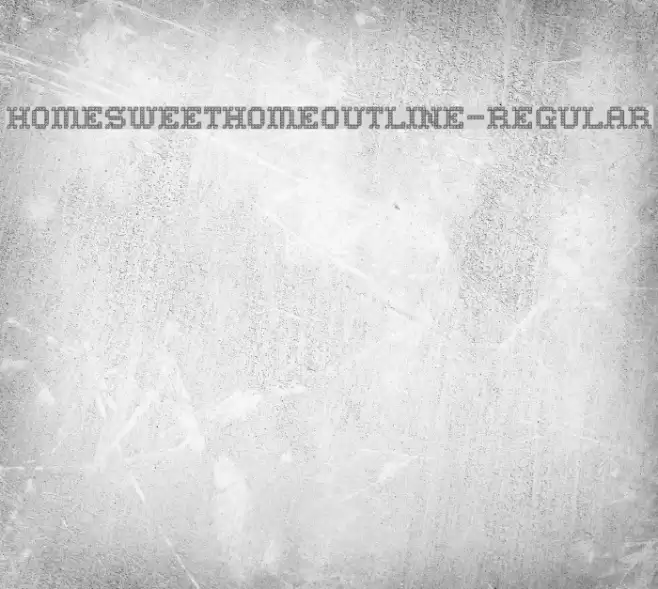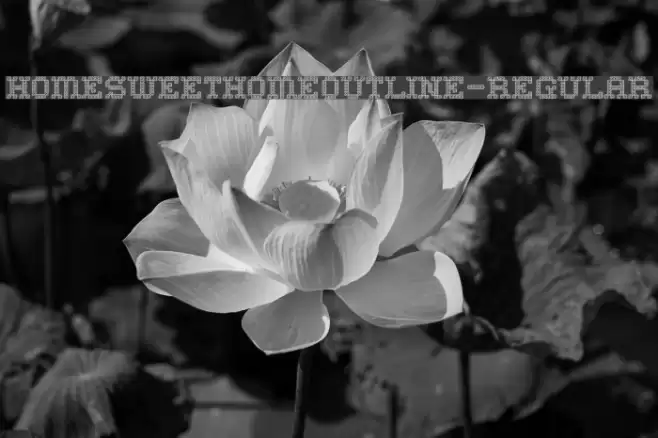
HomeSweetHomeOutline-Regular Font
HomeSweetHomeOutline-Regular Description
This font features a unique, decorative style with an outline design that resembles intricate, woven patterns. Each character is crafted with a consistent, bold outline that gives it a striking appearance. The letters are uppercase and lowercase, with numerals and a variety of special characters, all maintaining the same decorative theme. The design is reminiscent of a handcrafted, artisanal look, making it stand out in any application. The font's structure is solid, with each character having a uniform width and height, contributing to a cohesive and balanced look. The intricate detailing within the outlines adds a layer of complexity and visual interest, making it suitable for creative and artistic projects.
A decorative, outline font with intricate, woven patterns and a handcrafted appearance from Uncategorized fonts.
- Proposed Projects: Ideal for creative projects such as greeting cards, posters, and artistic branding materials.
- Use Case: Headlines, Logos, Artistic projects